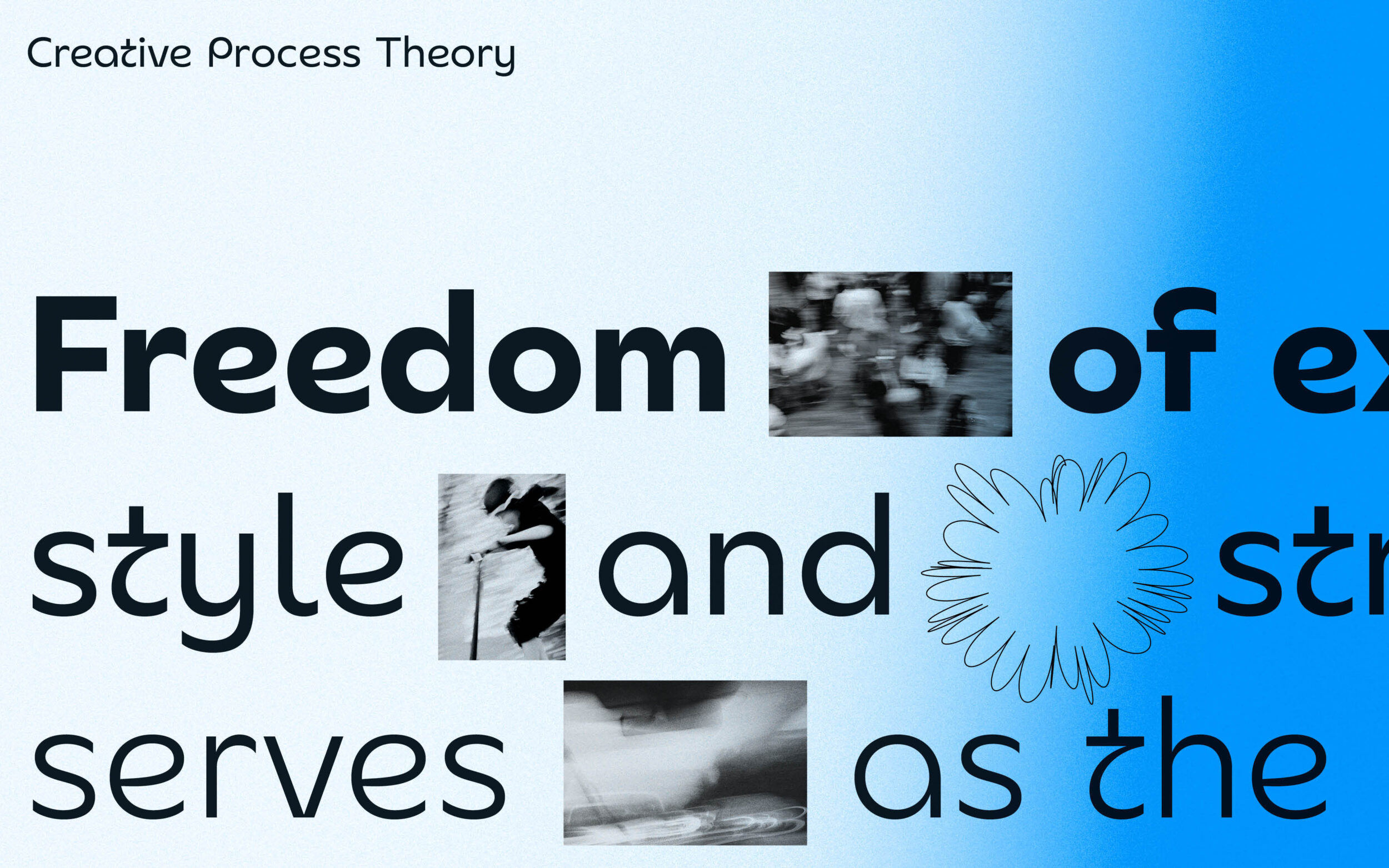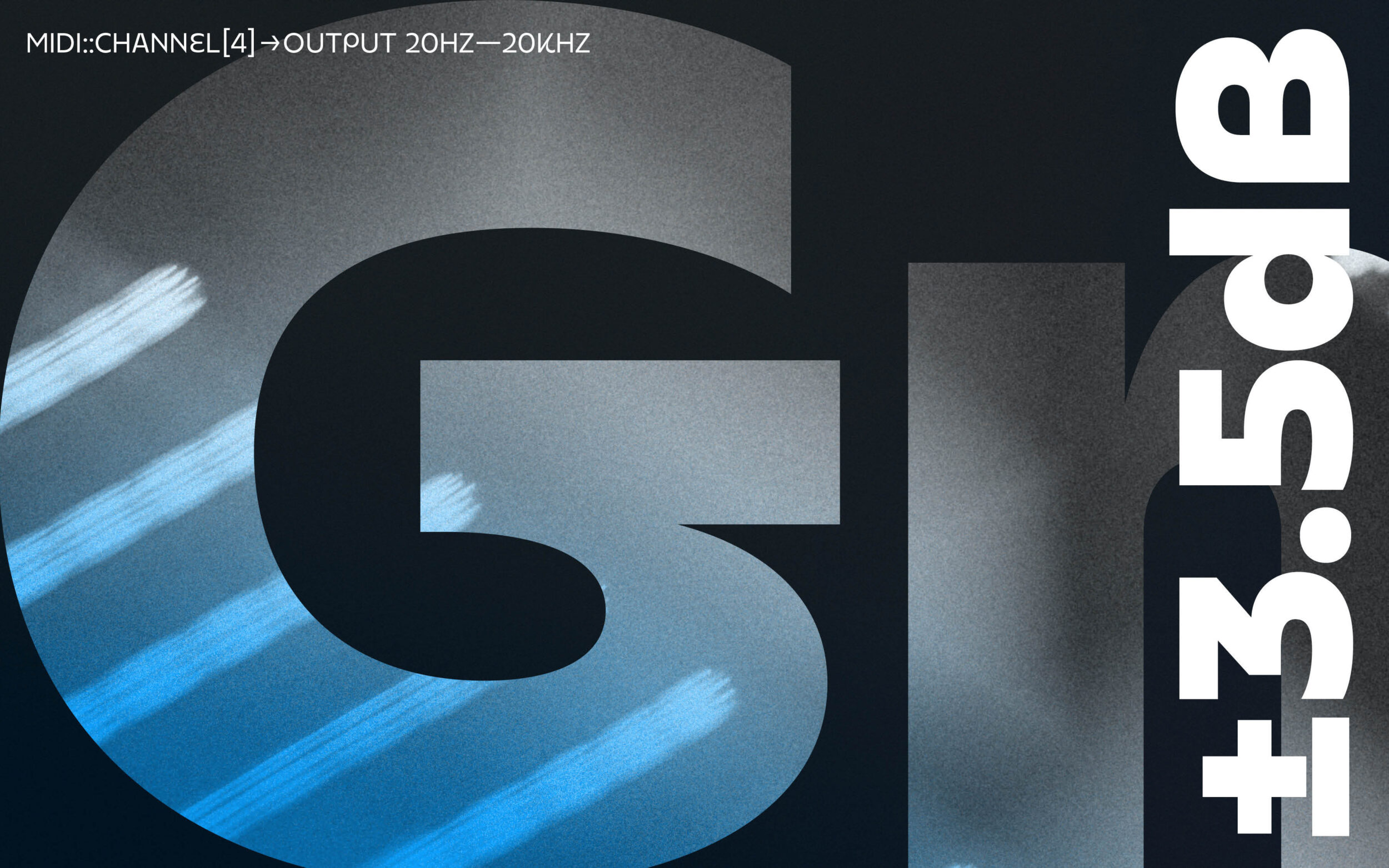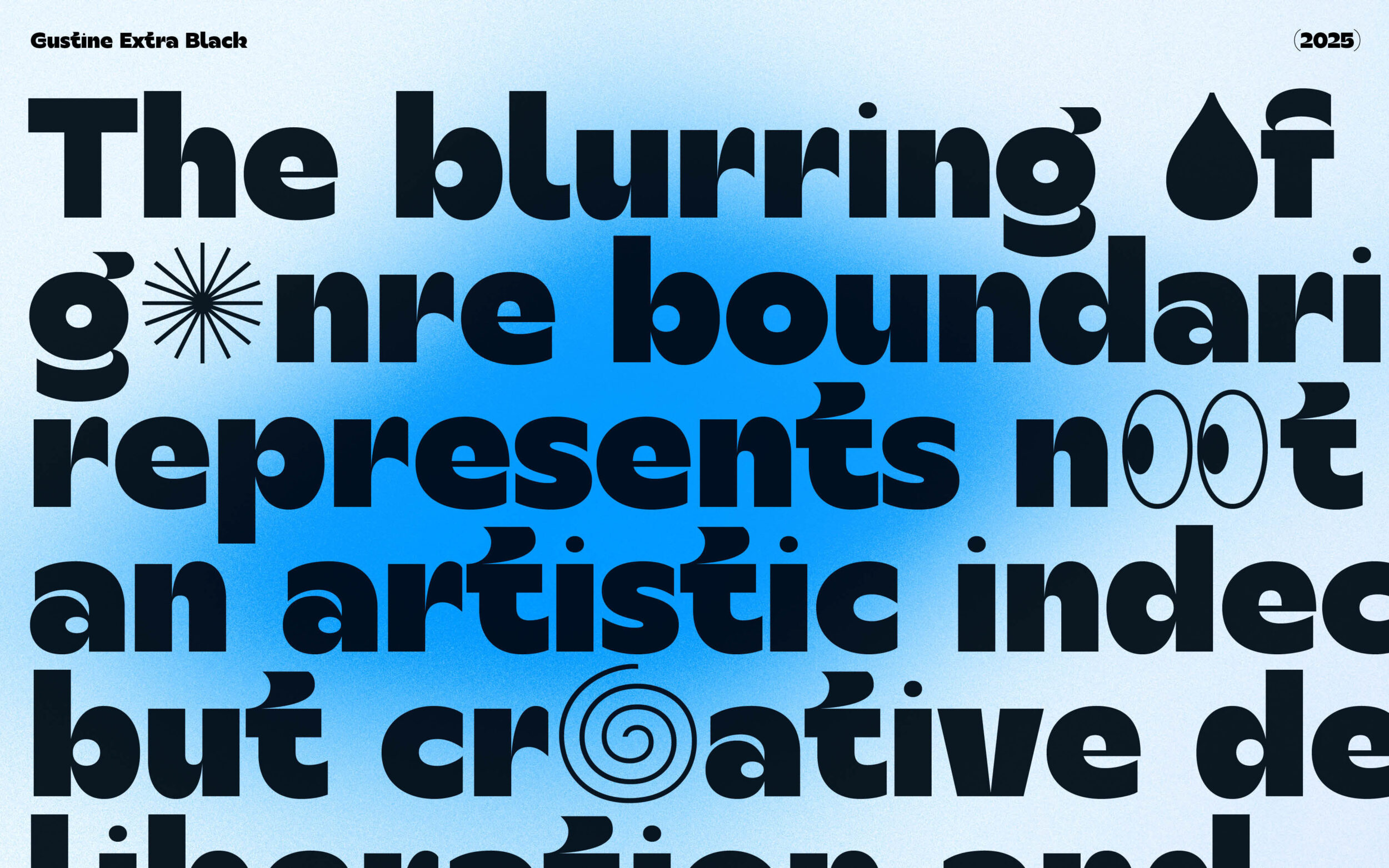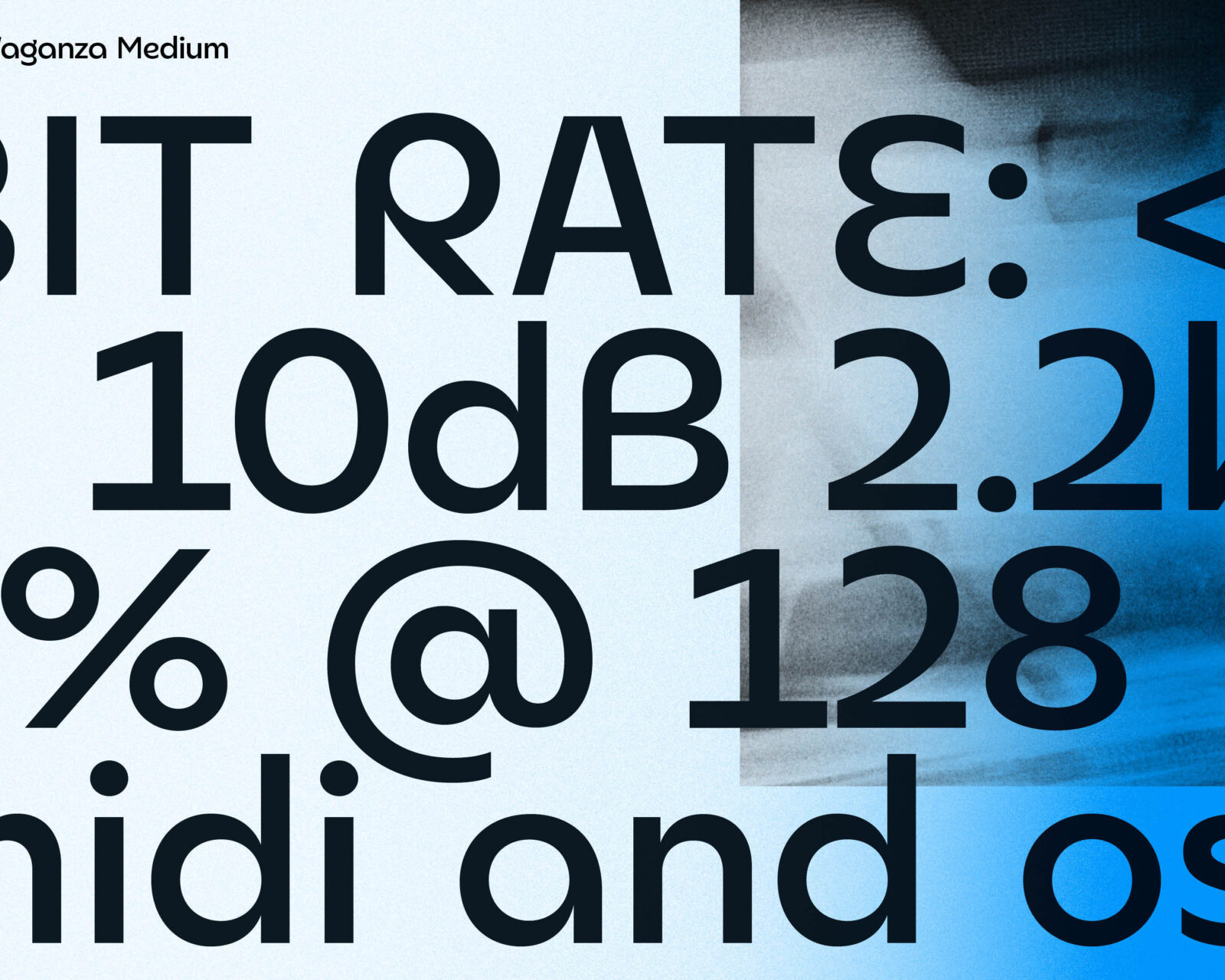
Gustine Vaganza
Peculiar and a bit over the top. 😎
✺There is Hope in Extravagance👀
Let your letters run wild with Gustine Vaganza.
Go Extra! 💣
Gustine Vaganza is a bold and imaginative typeface that pushes creative boundaries with its embrace of free expression. It combines playful, fluid and occasionally otherworldly features that make it both eye-catching and approachable. The design evolves with Gustine Extra, an even more intense and unique variant that amplifies the boldness of Vaganza.
Gustine Vaganza takes Gustine further. Derived from the Italian “estravaganza” without restraint, Gustine Vaganza stretches the limits: quirky, bold and dynamic it doubles down on Gustine’s DNA and brings new twists, flavour and personality to its forms.
Gustine Vaganza allows its letters to become loose and fluid, a little alien and therefore all the more relatable. Bold and unapologetic, it lends itself to branding, art, culture and standing out. Gustine’s more eccentric sister displays her handwritten fluidity in letters such as E, G, B, K, e, and k, bridging the gap between geometry and calligraphy. Deep joints in V, W or A further emphasise Gustine original sharpness, while t and f serve as highly recognisable key letters. And because a real Vaganza always demands more, simplified forms of y, p, q and a add a welcoming and familiar touch.
Vaganza becomes Extravaganza with Gustine’s unique family member, Gustine Extra, which takes the font family’s individuality to the extreme by delightfully escalating the Vaganza concept. With slightly different proportions and shapes, swashed initials, contrasting punctuation and intense joints, this stand-alone black display weight takes centre stage with gusto.
Providing versatile typographic support for any project, Gustine Vaganza has seven weights. Like all TypeMates fonts, it features an extensive character set that supports up to 200 languages that use the Latin alphabet, as well as a rich selection of symbols, icons, arrows and dingbats. It also includes a fun collection of emoji for added flair.